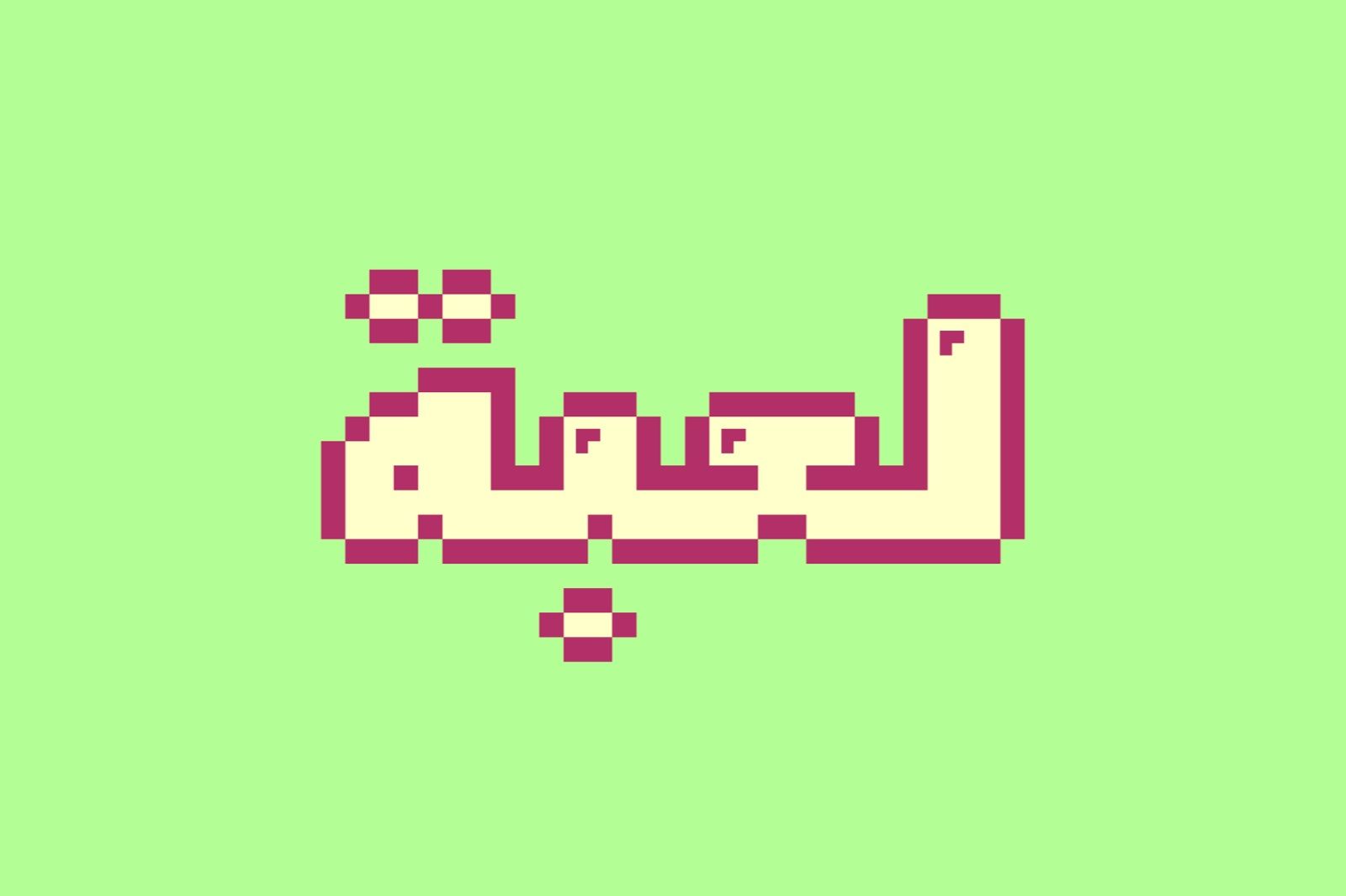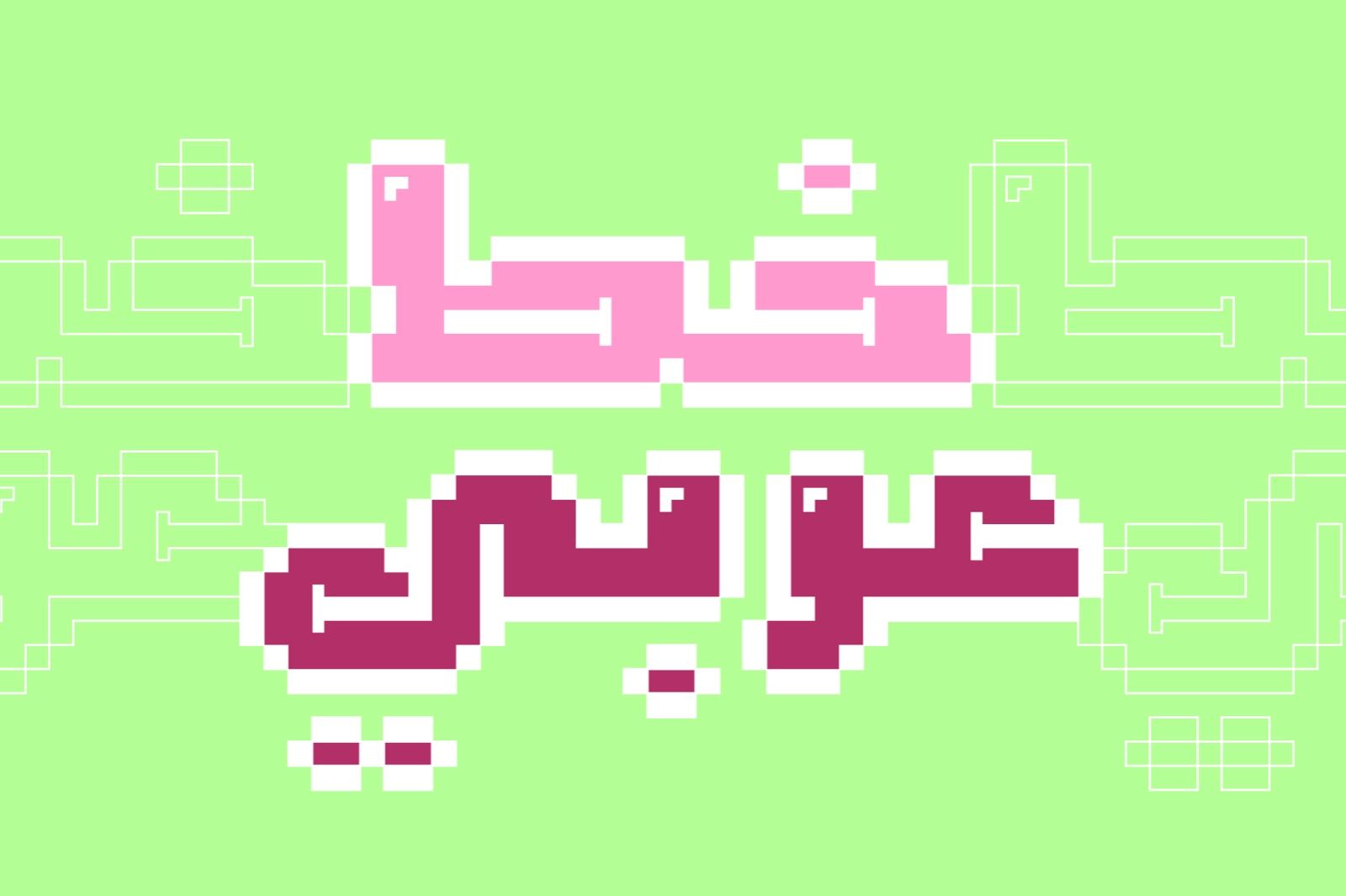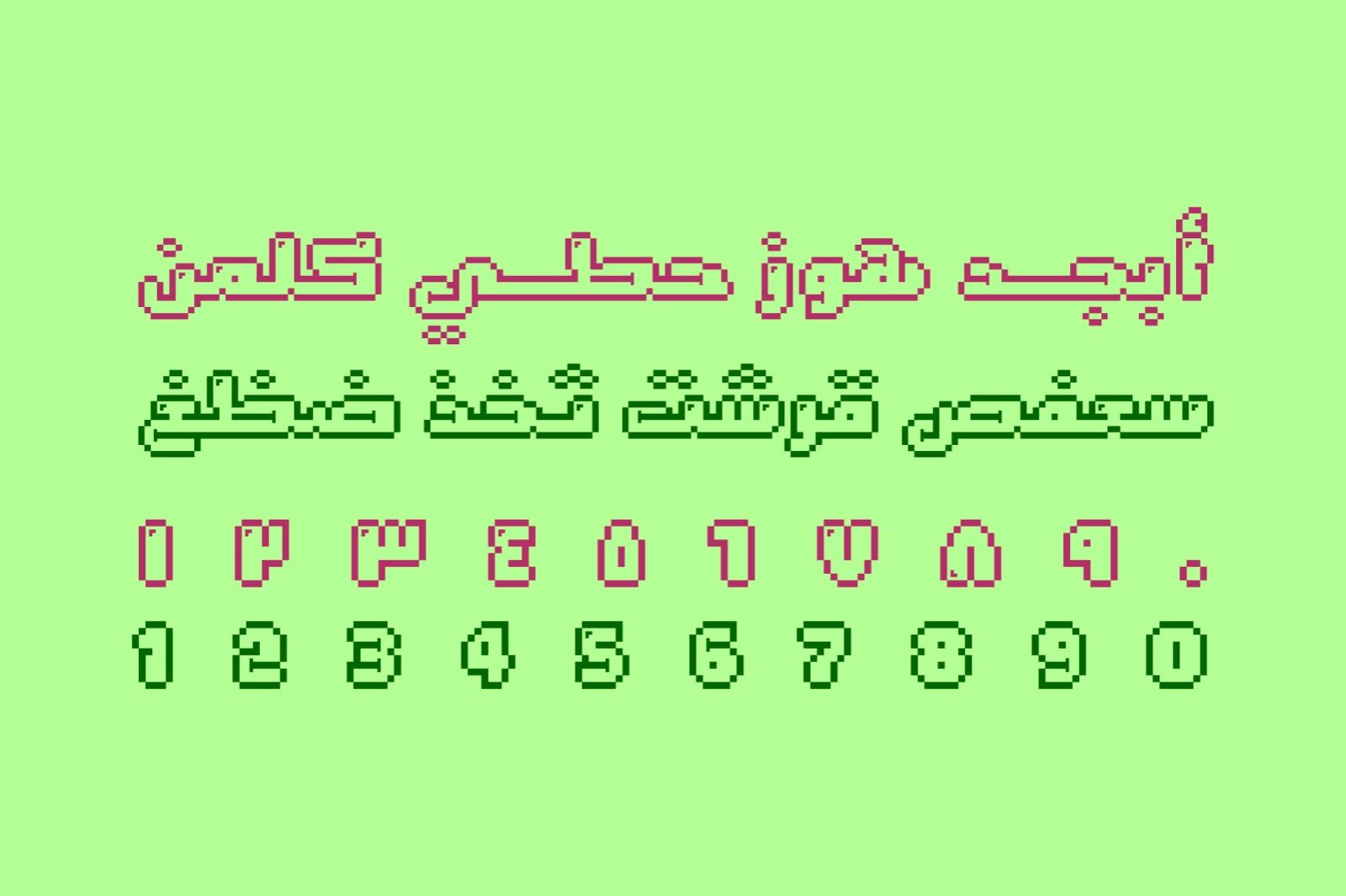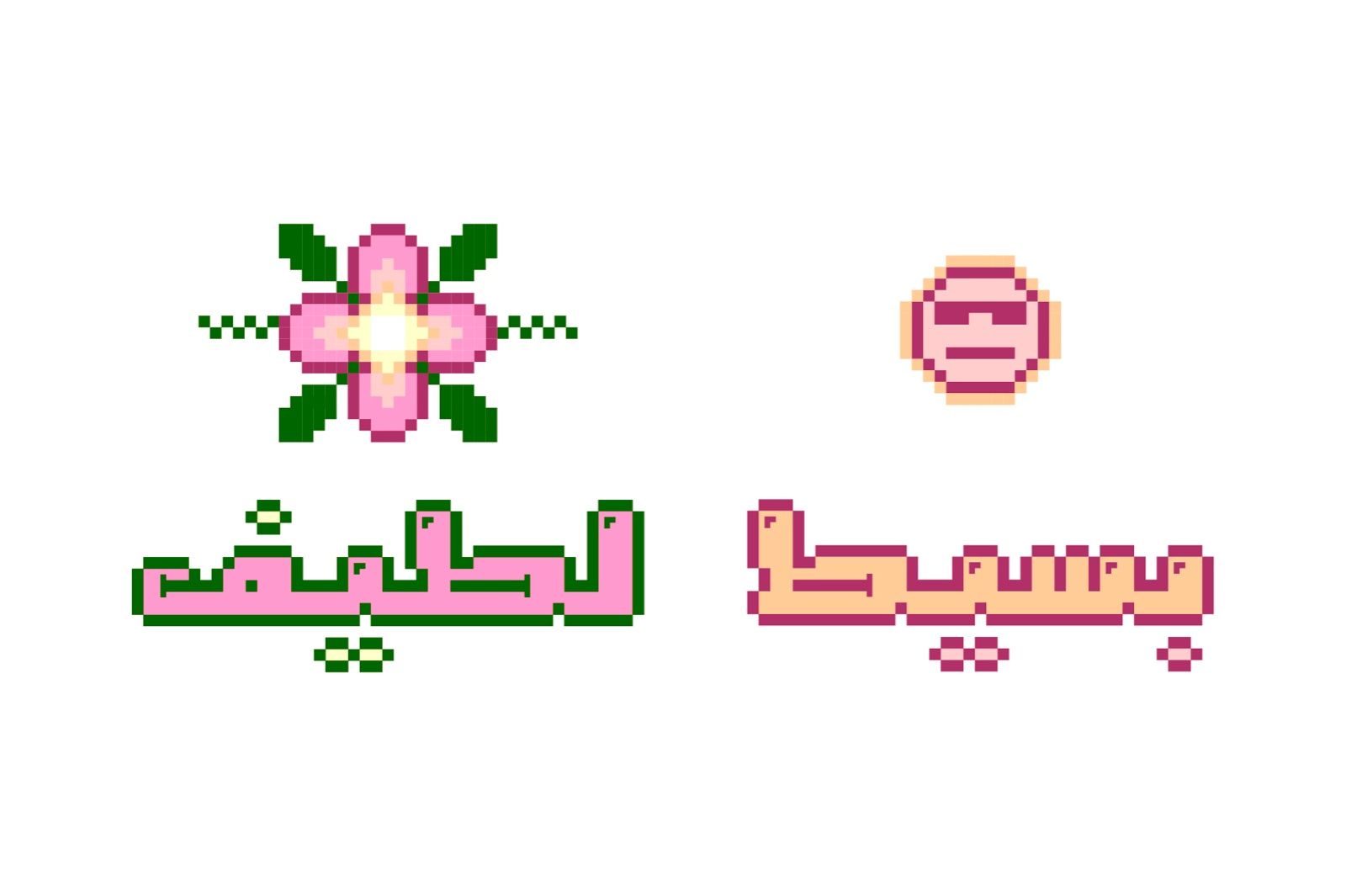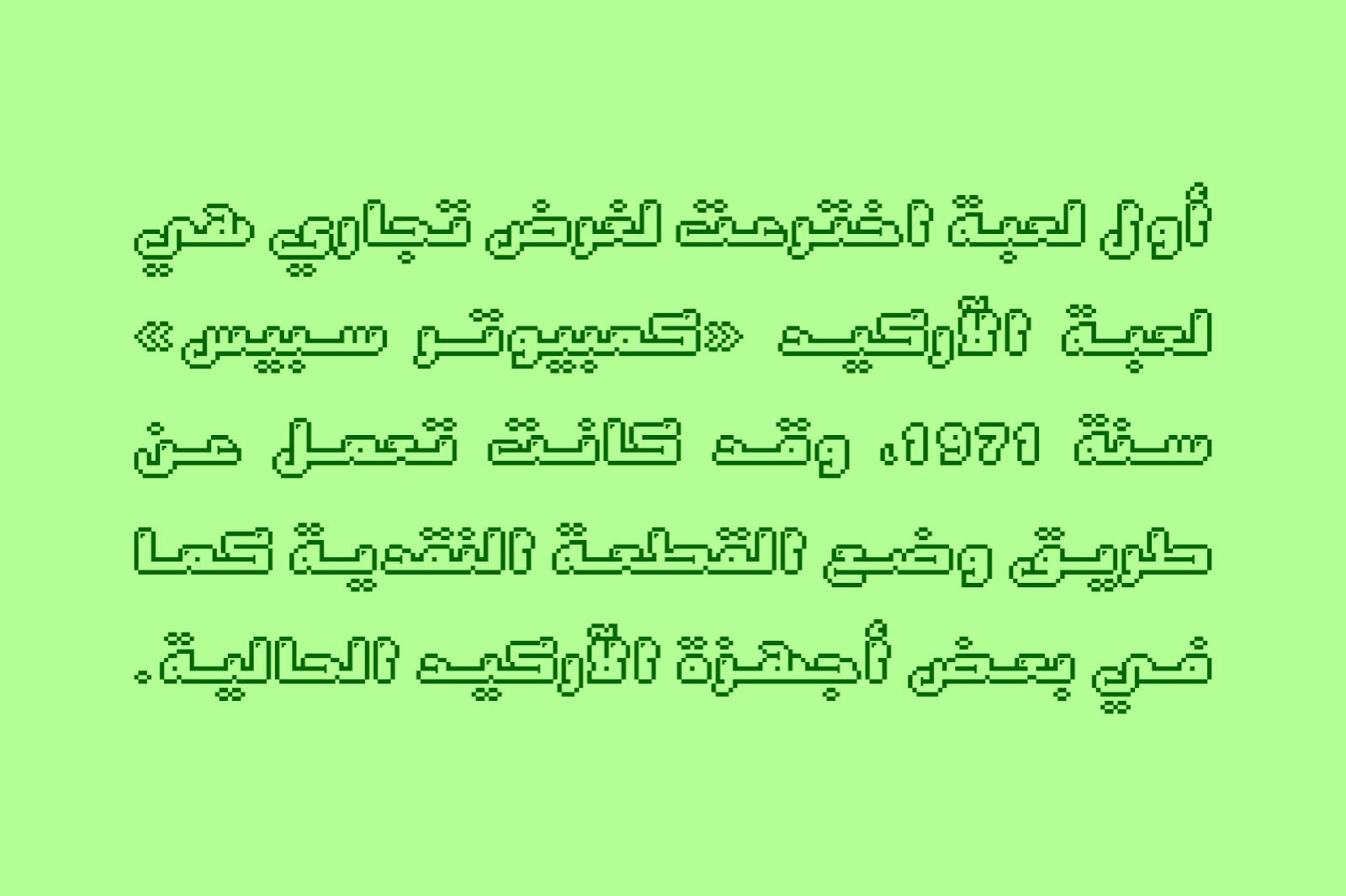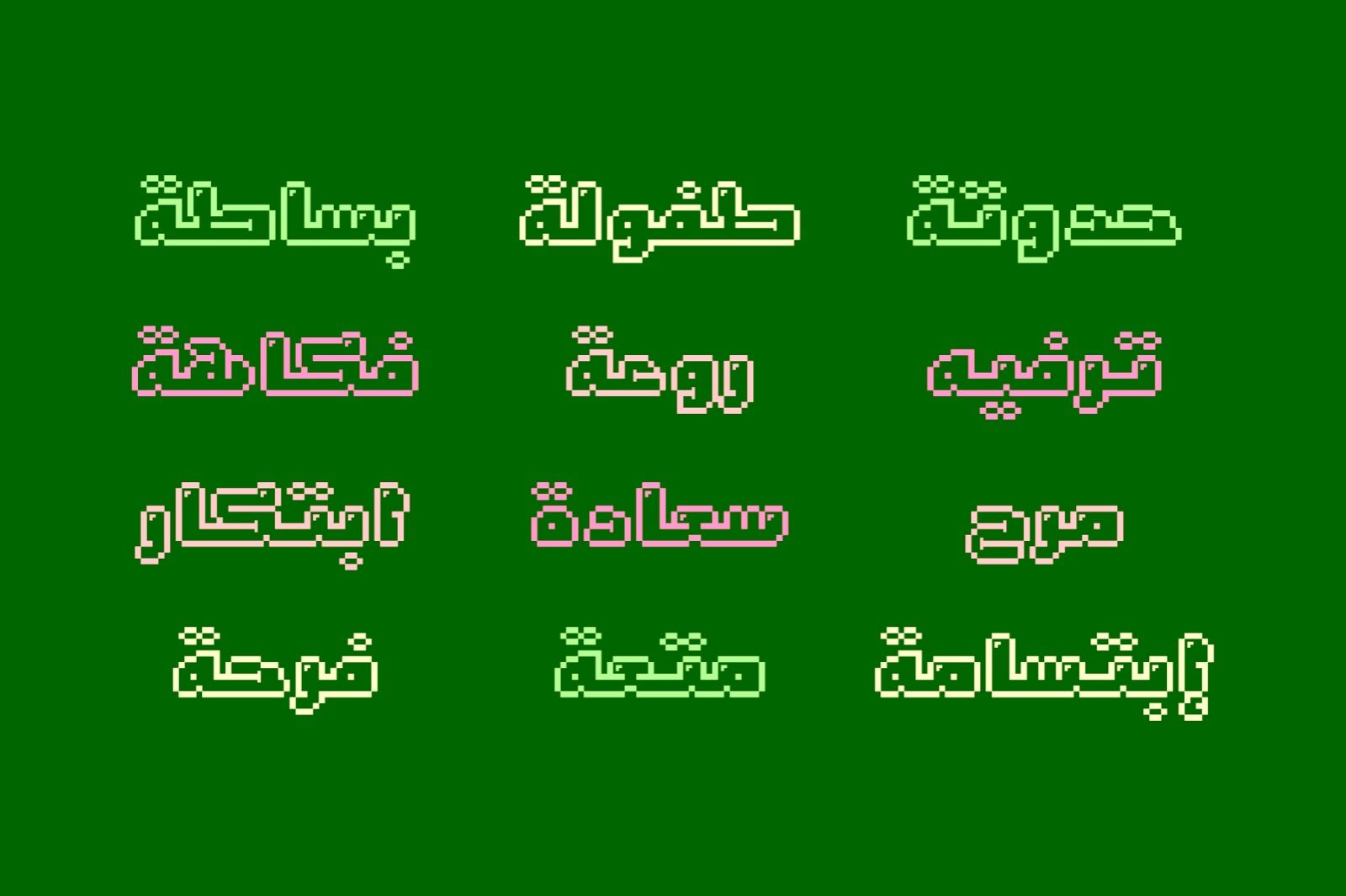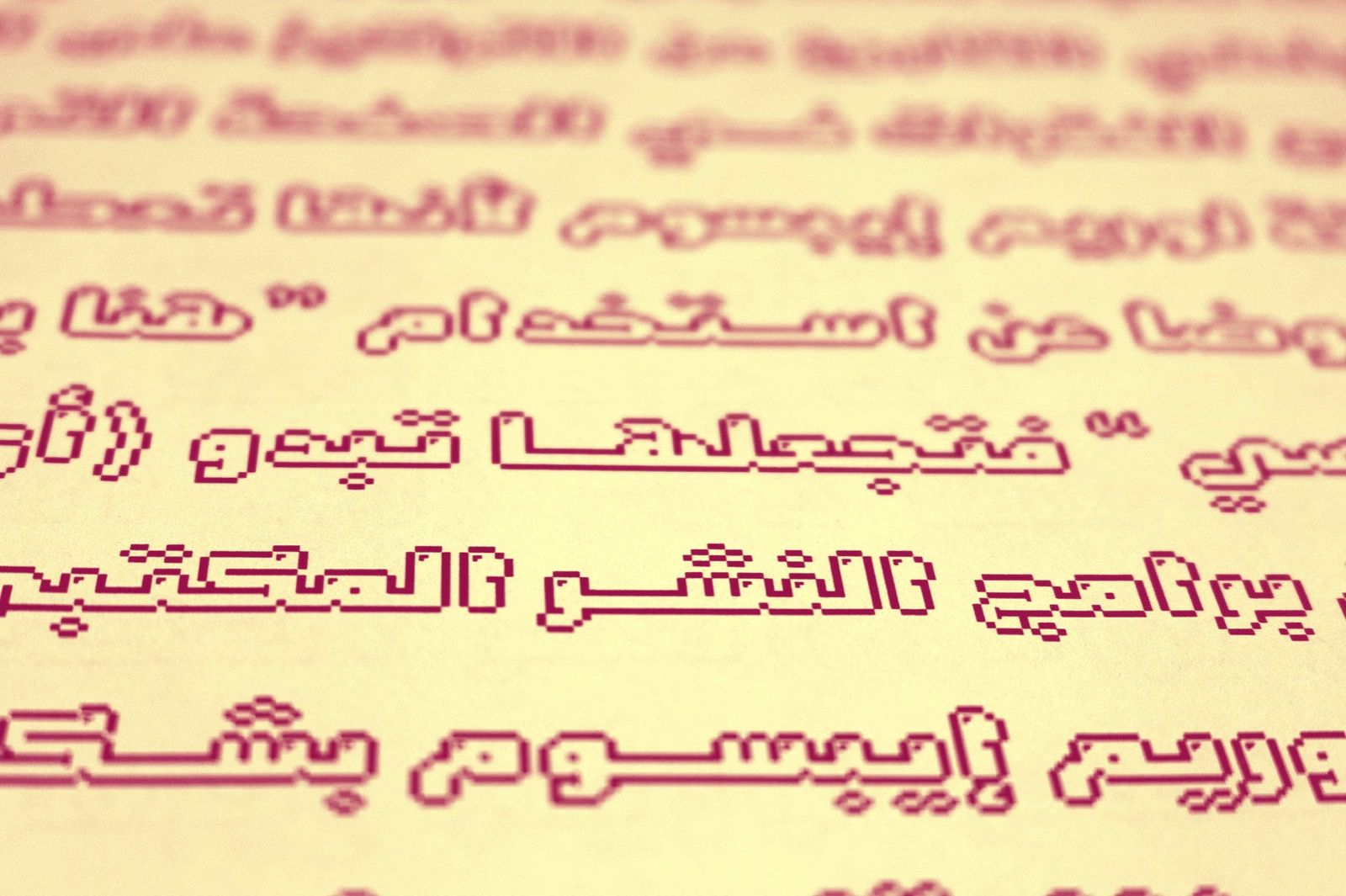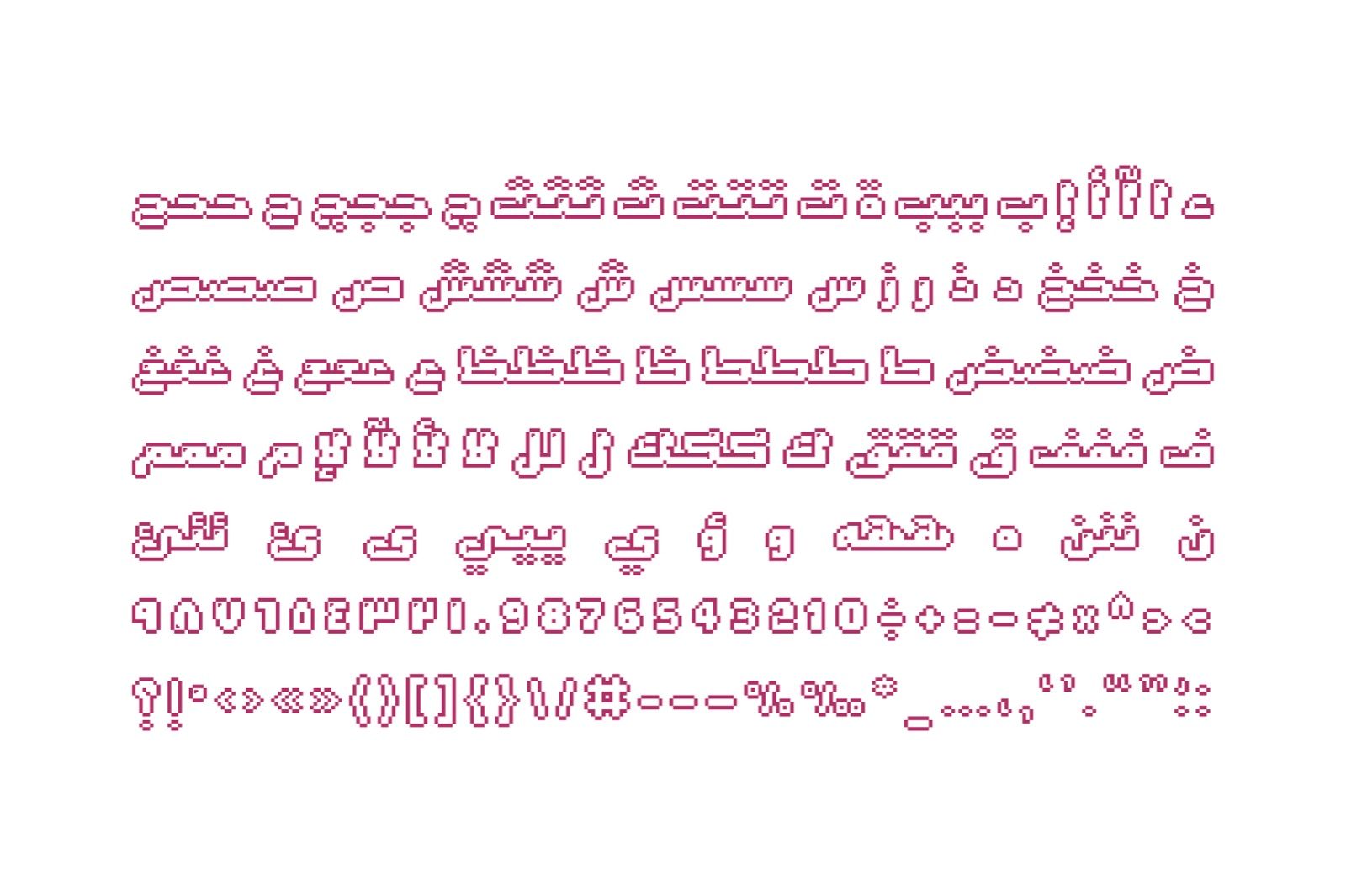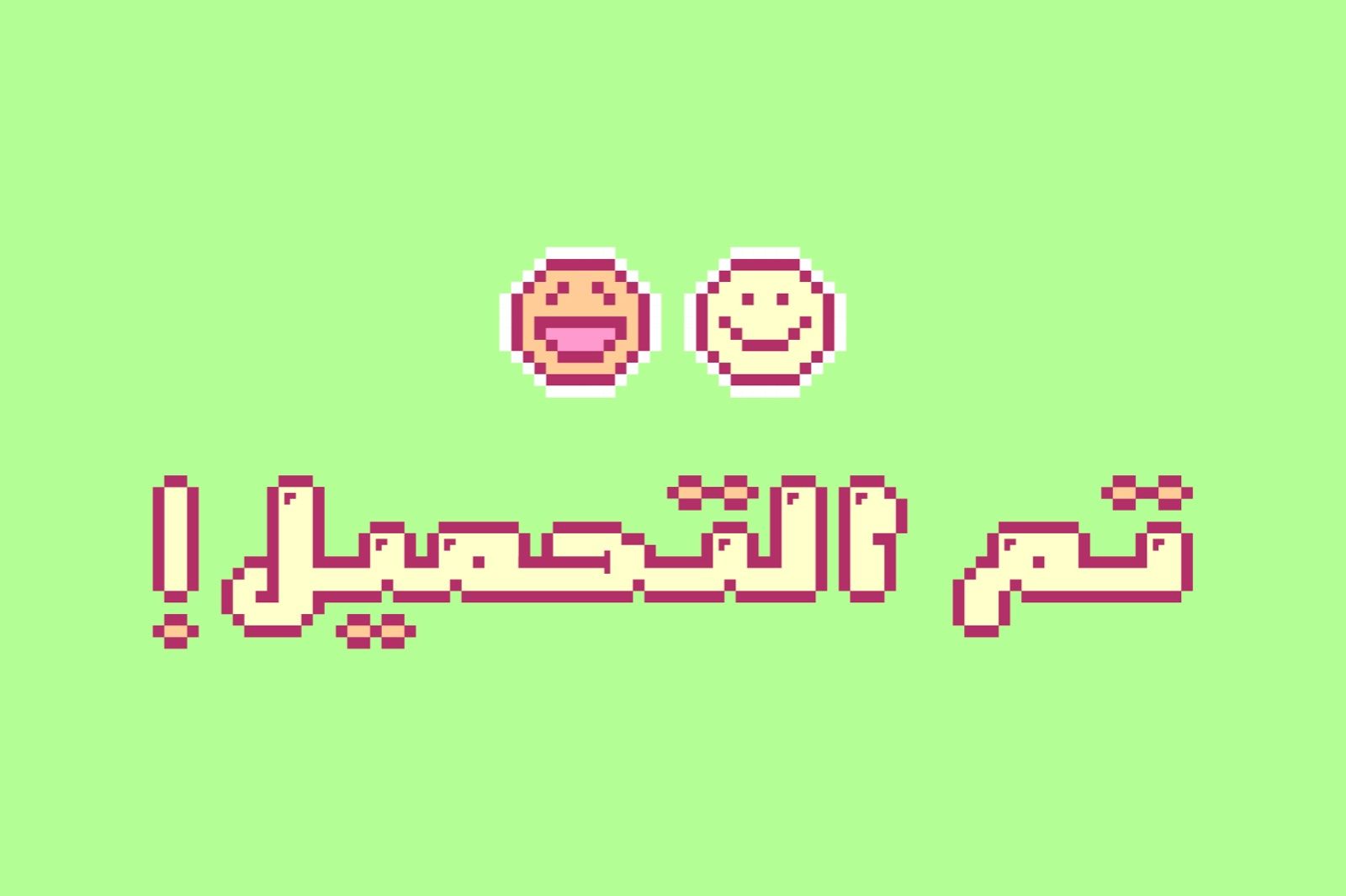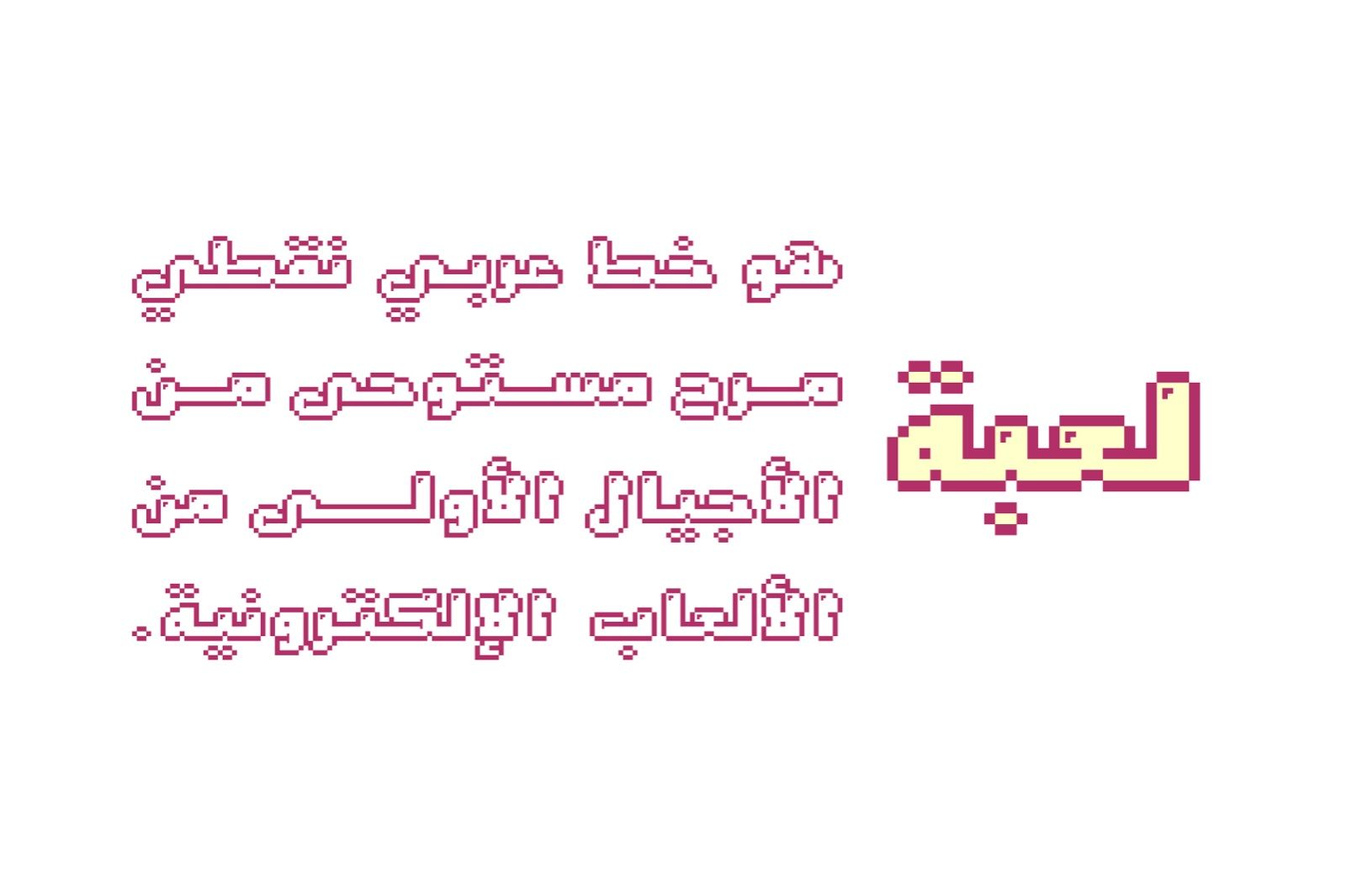
Loabah (the Arabic word for Game or Toy) is a versatile single-weight font designed for a range of display applications such as web design, advertising, and eye-catching typography. It is compatible with Windows, Mac, and mobile applications.